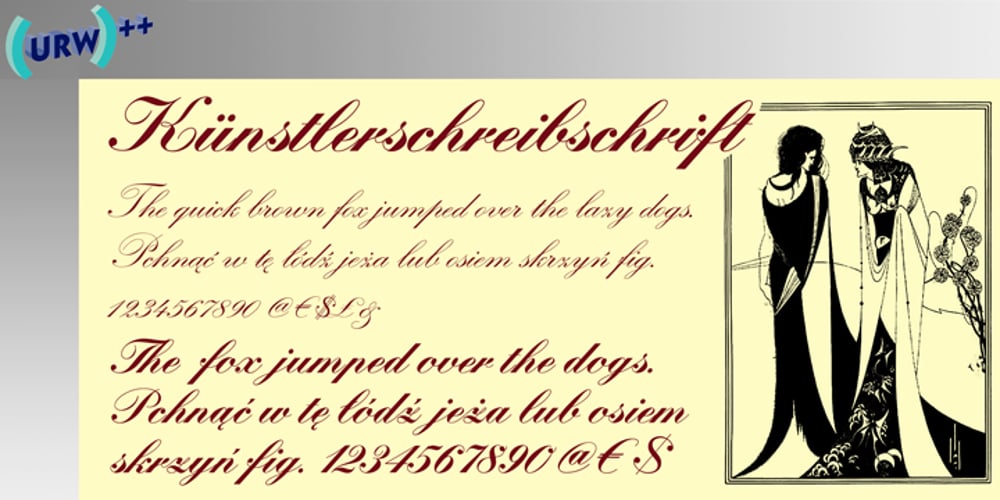
Künstlerschreibschrift Font Family was designed by Hans Bohn and published by URW Type Foundry. Künstlerschreibschrift contains 2 styles and family package options. After inventing a new metal typecasting procedure that allowed for the production of more detailed typefaces, the famous German typefoundry D. Stempel AG developed Kuenstler Script in 1902 – 1903. Originally called Kunstlerschreibschrift (artistic handwriting), this design was based on English copperplate script styles from the late 1800s.In 1957, Hans Bohn added the heavy Kuenstler Script Black weight to the family.Like intricate handwriting put to paper with a feather and an inkwell, Kuenstler Script makes almost any text look distinguished and elegant. Kuenstler Script is a joining script; and because of its fine hairlines and small x-height, it is best used at sizes above 12 pt. The typeface works well in advertising work and on invitations, greetings cards, business cards, and certificates.